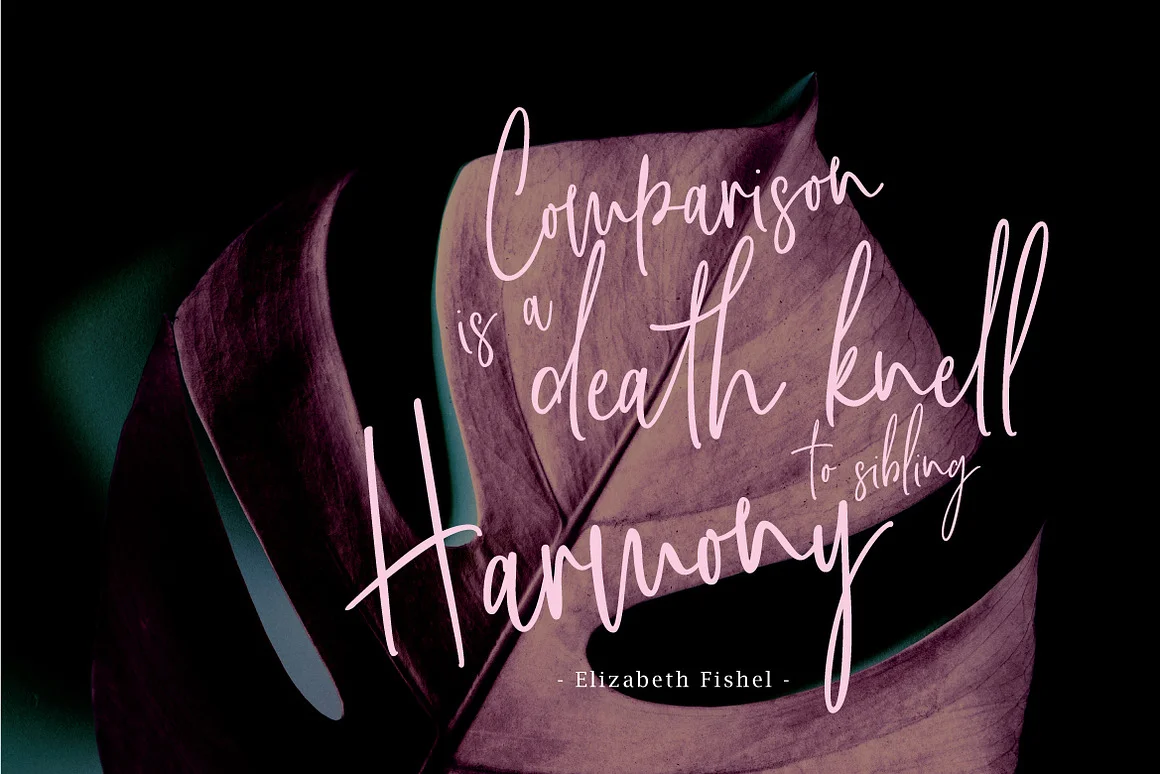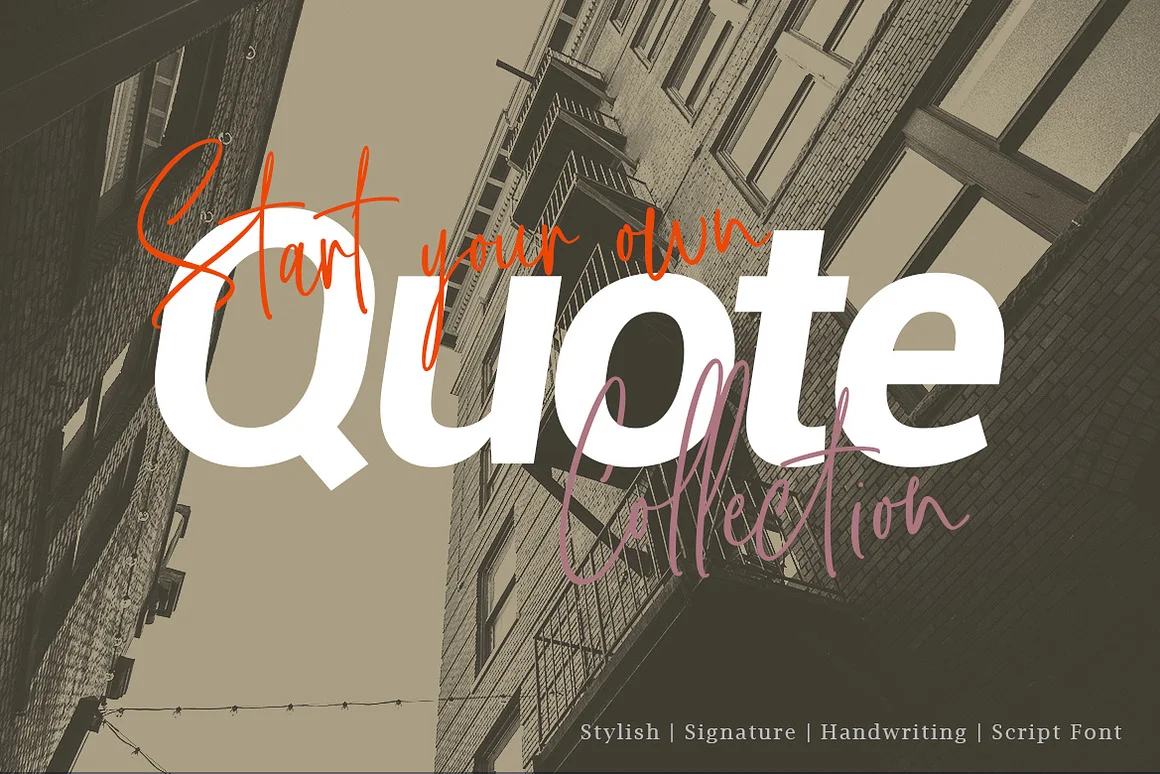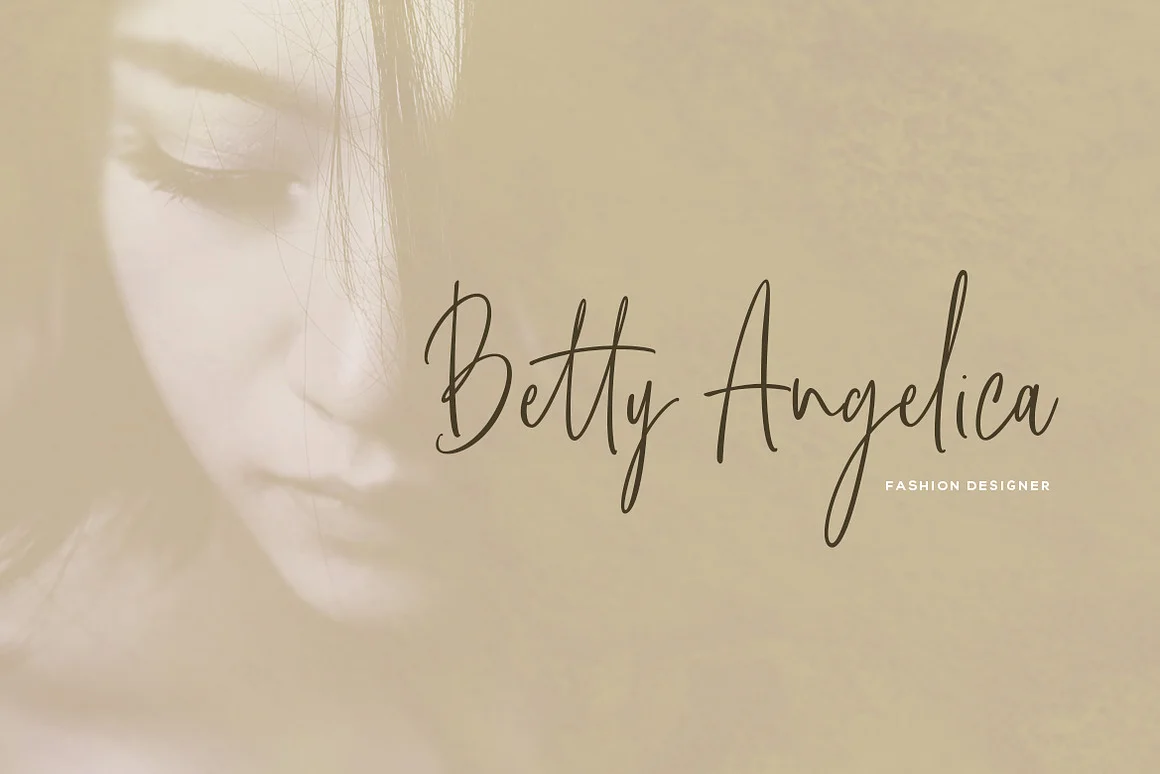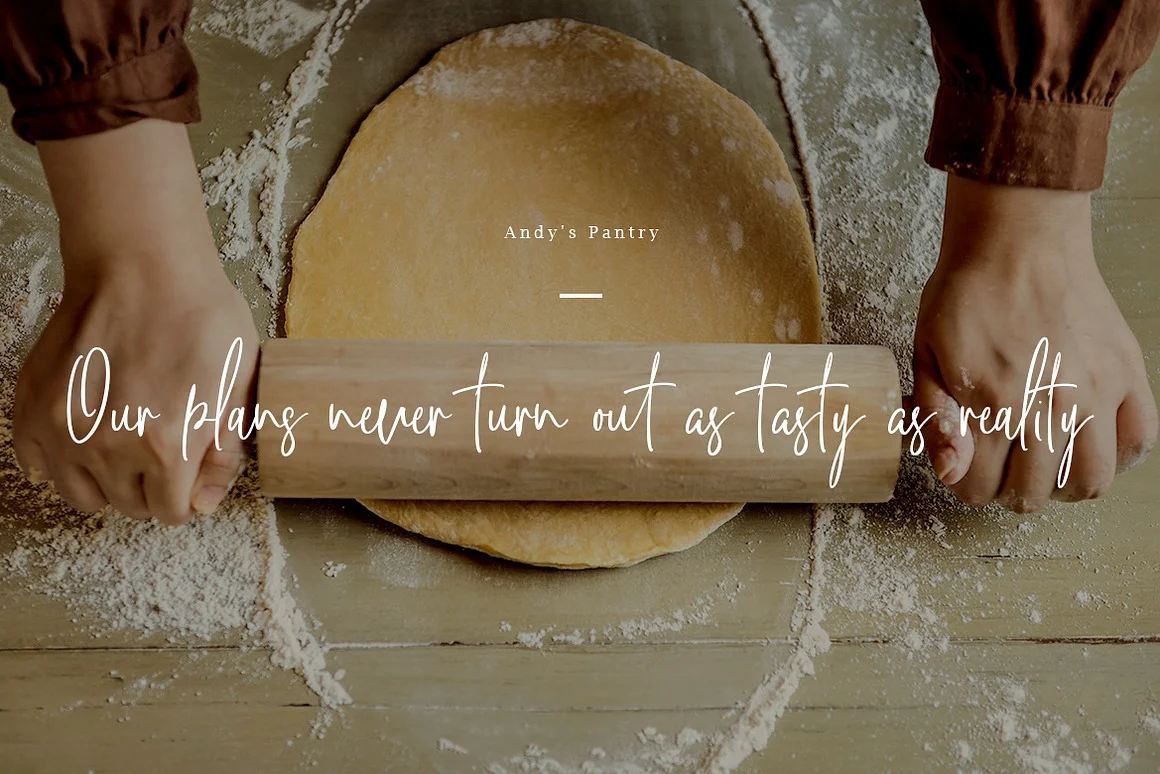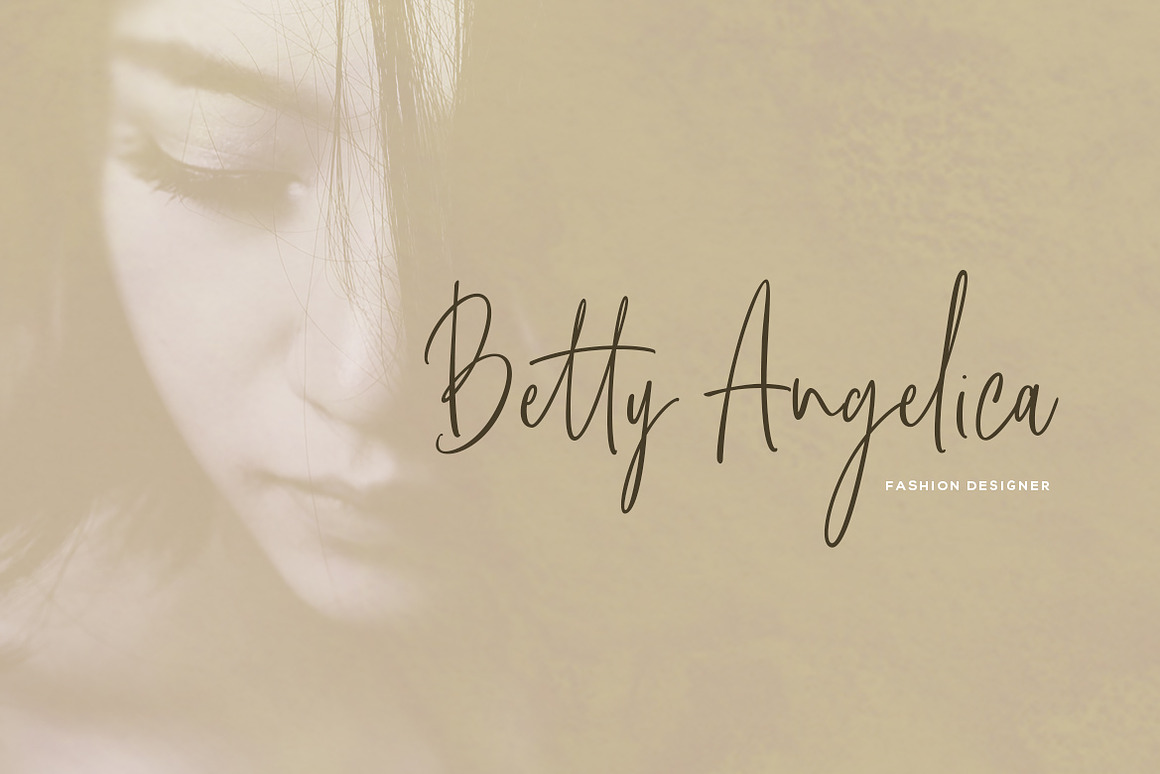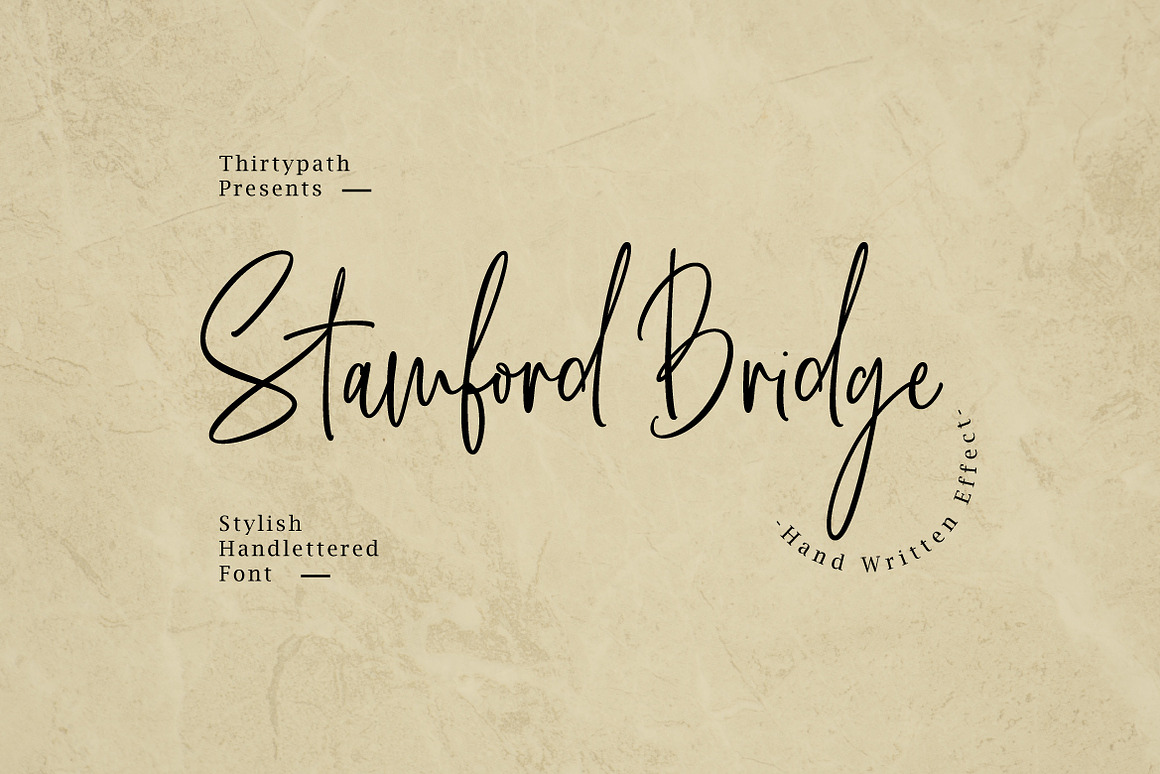
Stamford Bridge Script Font
This Stamford Bridge Script Font is perfect for historic landmark branding, British heritage materials, prestigious university communications, traditional English establishments, historic battlefield commemorations, royal heritage projects, distinguished bridge engineering firms, classic British tourism, ceremonial event designs, and noble heritage applications.
What makes this Stamford Bridge Script Font exciting is its historic nobility that captures the legendary significance and distinguished heritage of British historical excellence and royal tradition. The font features elegant script letterforms with historic characteristics that convey noble heritage, British sophistication, and ceremonial distinction. Its prestigious character and heritage-inspired design make it ideal for brands seeking to communicate British excellence, historic significance, and royal distinction in heritage and cultural markets.
The Stamford Bridge Script Font family includes regular, medium, and bold weights with historic alternates, royal variants, and ceremonial flourishes. This comprehensive heritage font family provides designers with distinguished typographic tools to create noble compositions while maintaining the British character essential for heritage brands and historic communications.
Heritage organizations and British cultural institutions consistently choose Stamford Bridge Script Font for projects requiring authentic British appeal and historic credibility. This font's distinctive noble character perfectly captures the royal heritage and British excellence that resonate with audiences who appreciate British history, royal traditions, and brands that embody distinguished heritage and ceremonial sophistication.
The distinguished construction of Stamford Bridge Script Font showcases elegantly crafted letterforms with royal proportions that ensure exceptional nobility across all heritage applications. Its historic appearance and prestigious character create memorable impressions while maintaining the readability necessary for effective heritage communication and British cultural materials.
Professional designers appreciate how Stamford Bridge Script Font brings immediate British authenticity and historic distinction to brand communications. The font's noble nature allows organizations to communicate royal excellence and British heritage while maintaining the professional quality necessary for effective positioning in heritage tourism and British cultural markets.
The ceremonial appeal of Stamford Bridge Script Font makes it particularly effective for brands emphasizing British heritage, royal tradition, and historic significance. Its distinguished character resonates strongly with audiences who appreciate British culture, royal ceremonies, and brands that represent the noble elegance and historic excellence of British heritage.
Whether developing materials for British heritage sites or creating branding for royal commemorative events, Stamford Bridge Script Font provides the distinguished typographic foundation that heritage brands need to communicate their British excellence, royal heritage, and the noble distinction that defines British cultural achievement and historic significance.